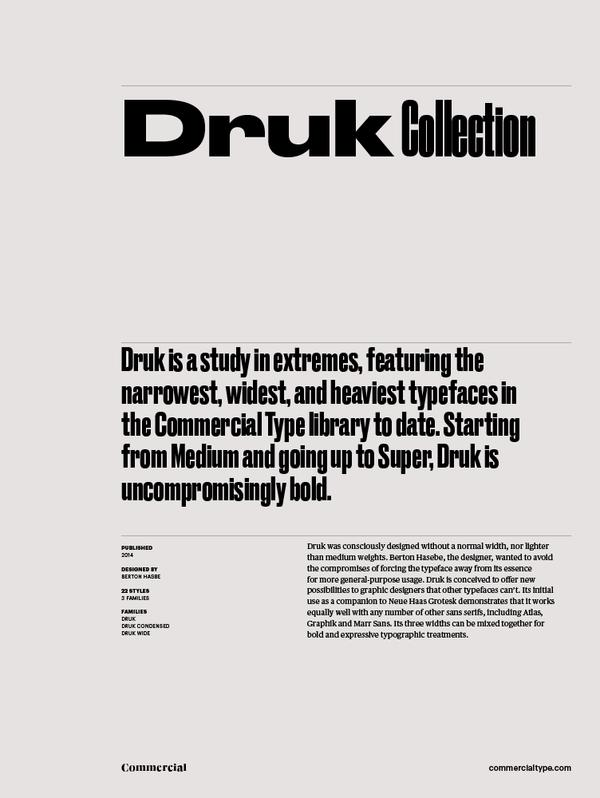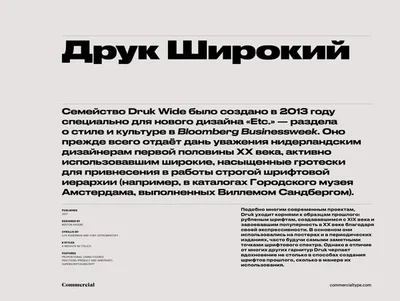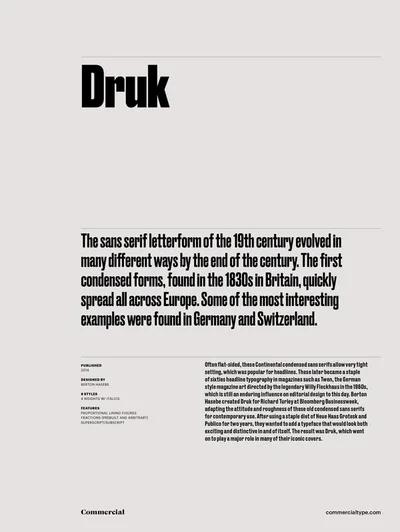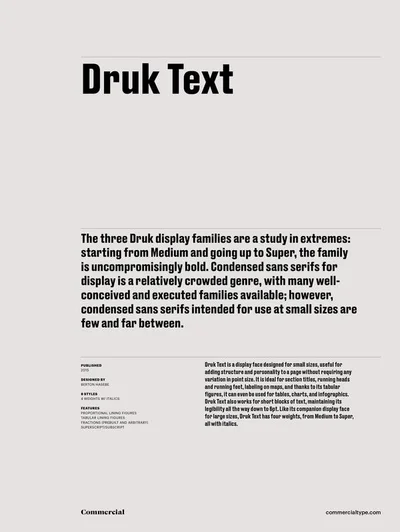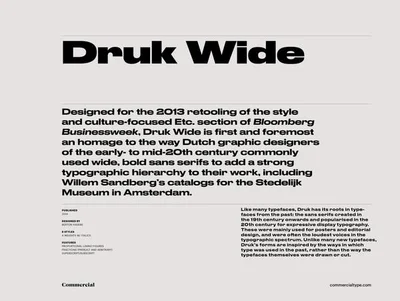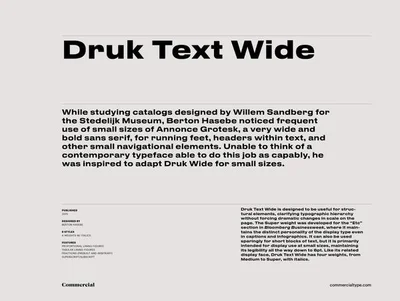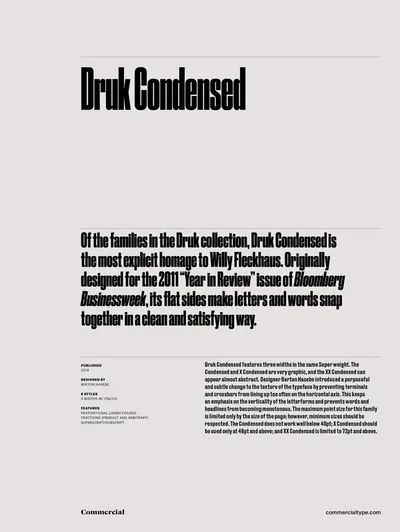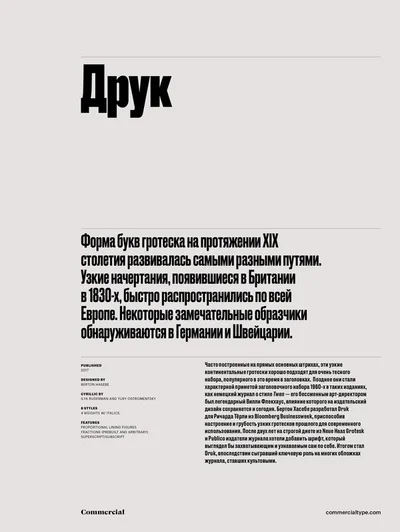
Druk vs Milkshake
Druk and Milkshake are both display typefaces sharing a bold foundation. Where Druk leans condensed, editorial, Milkshake brings script, retro. Compare which suits your Display project.
Design overlap:29%
| Feature | Druk | Milkshake |
| Classification | display | display |
| Language Support | latin, latin-extended, cyrillic | latin, latin-extended |
| Source | Commercial Type | Laura Worthington |
Recommended: Druk
- condensed, editorial design character
- Suited for Headlines and Editorial
- From commercial-type
Consider: Milkshake
- script, retro design character
- Suited for Retro and Packaging
- From laura-worthington